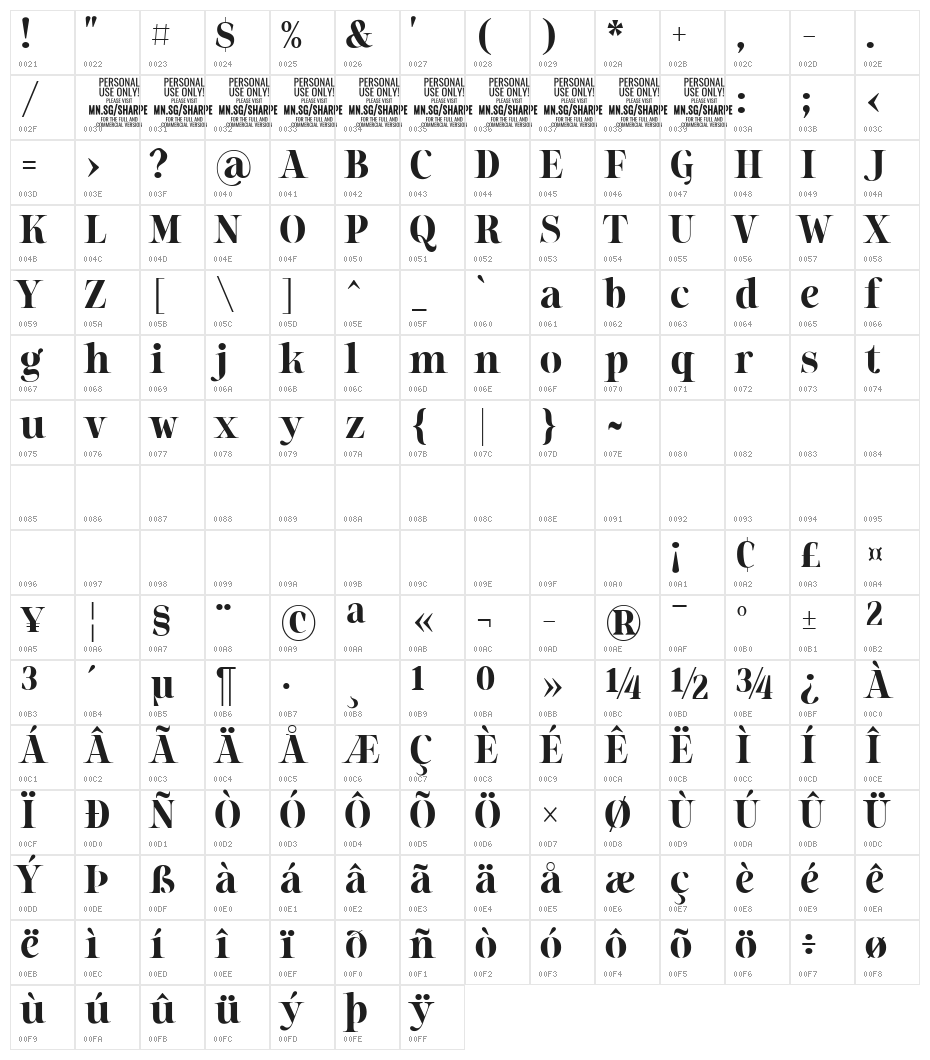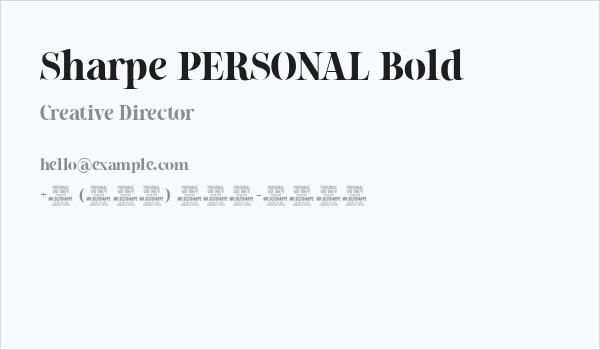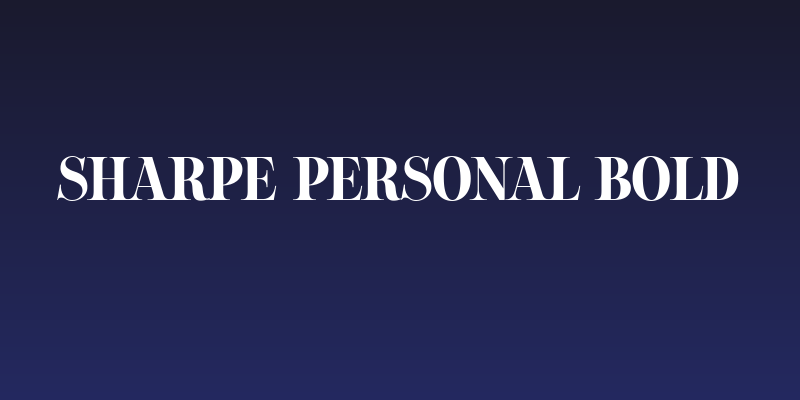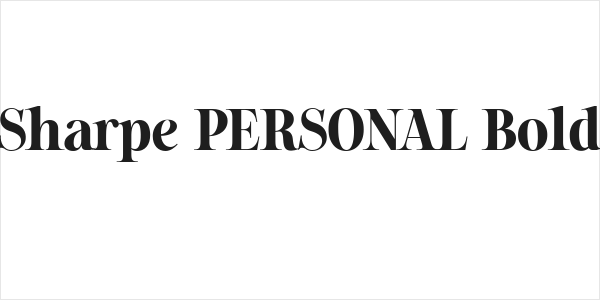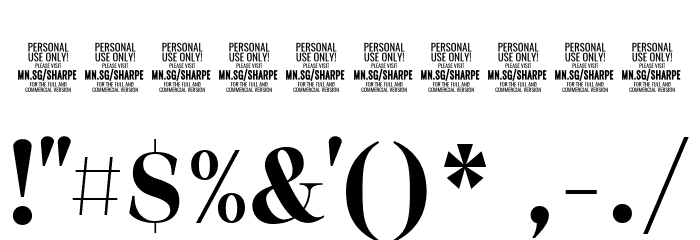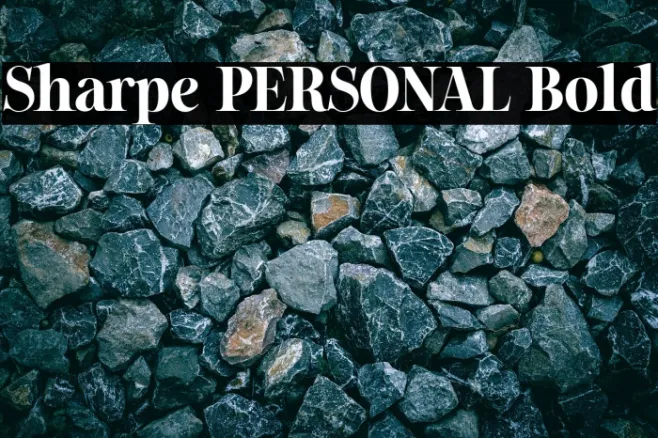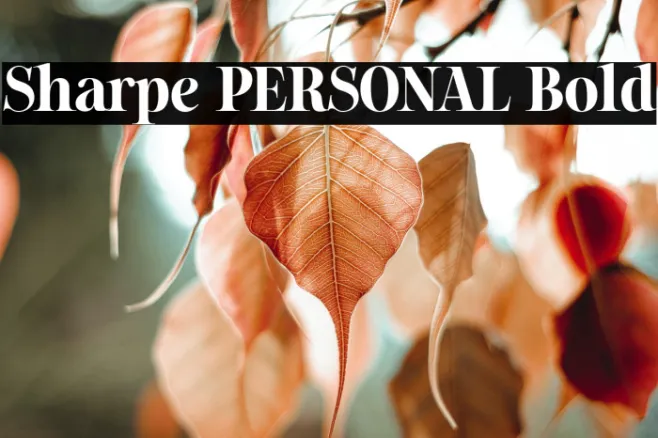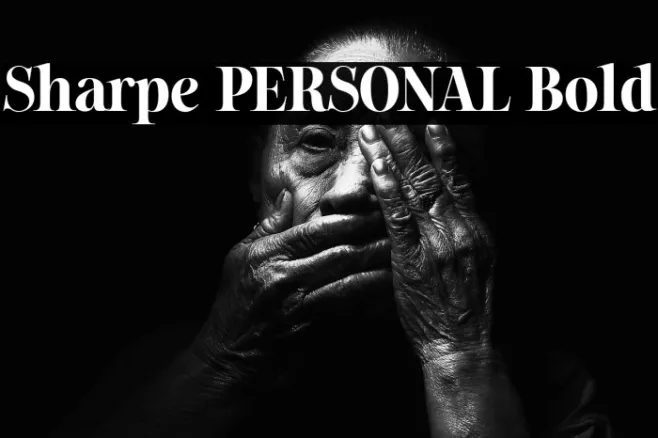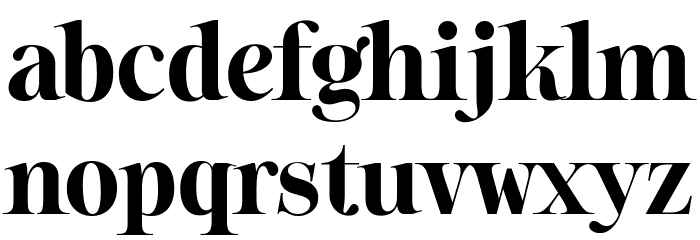
Sharpe PERSONAL Bold Font
Sharpe PERSONAL Bold Description
This font features a bold and striking serif style, characterized by its thick and prominent strokes that create a strong visual impact. The uppercase letters are tall and commanding, while the lowercase letters maintain a consistent boldness, ensuring readability and presence. The serifs are sharp and defined, adding a touch of elegance and sophistication. The numerals and special characters are equally bold, maintaining the overall aesthetic. This font is ideal for making a statement, with its high contrast and dramatic flair.
| Proposed Projects | Ideal for headlines, branding, posters, and any project requiring a strong, impactful typeface. |